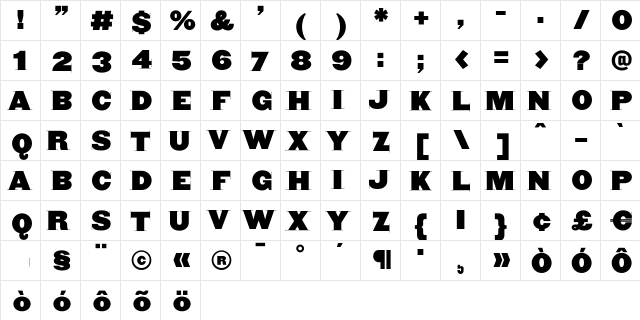
BlaxxerifaBeta Regular
Design Context for BlaxxerifaBeta Typeface
BlaxxerifaBeta is a composed and adaptable typeface that performs quietly and consistently across a wide range of design contexts.